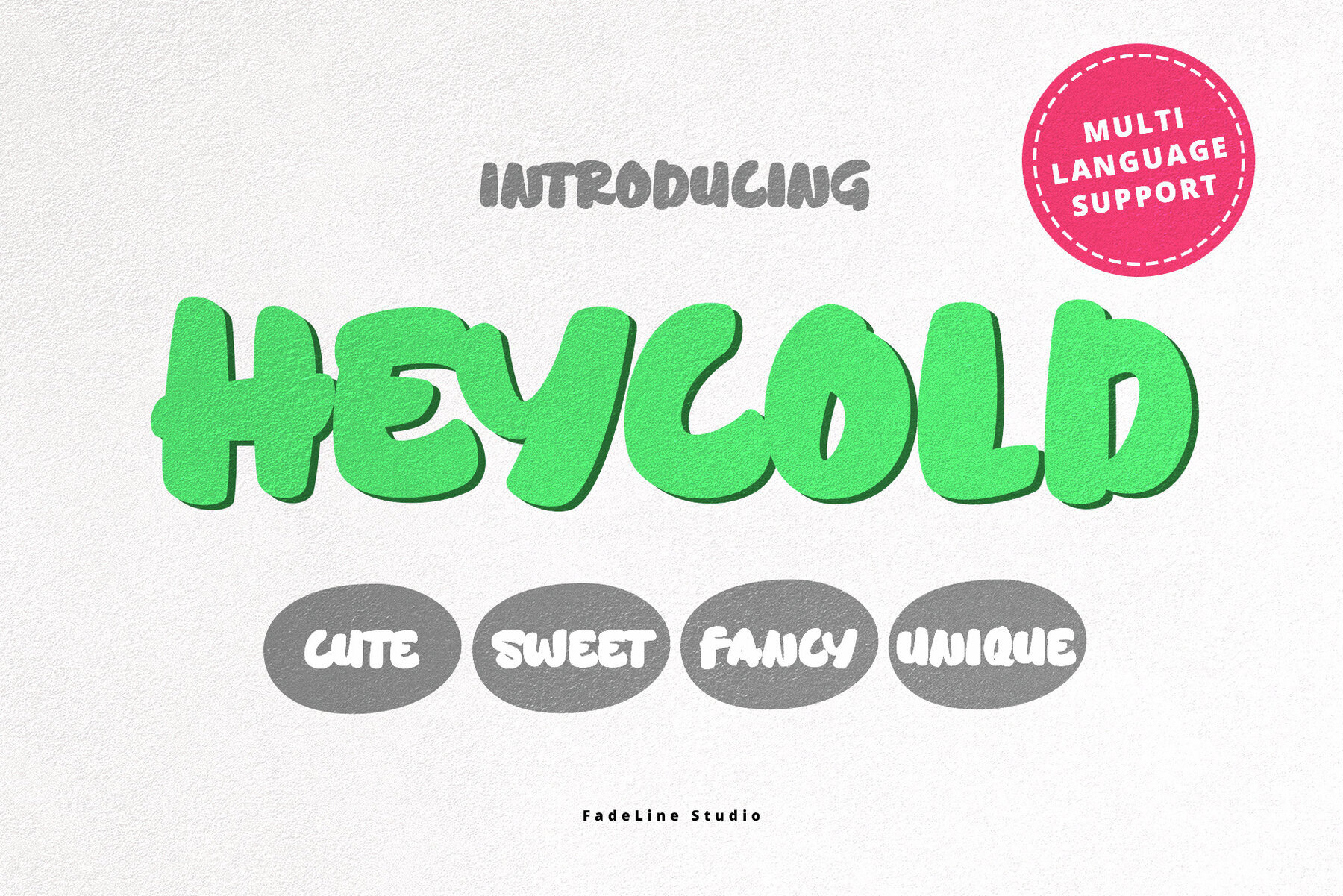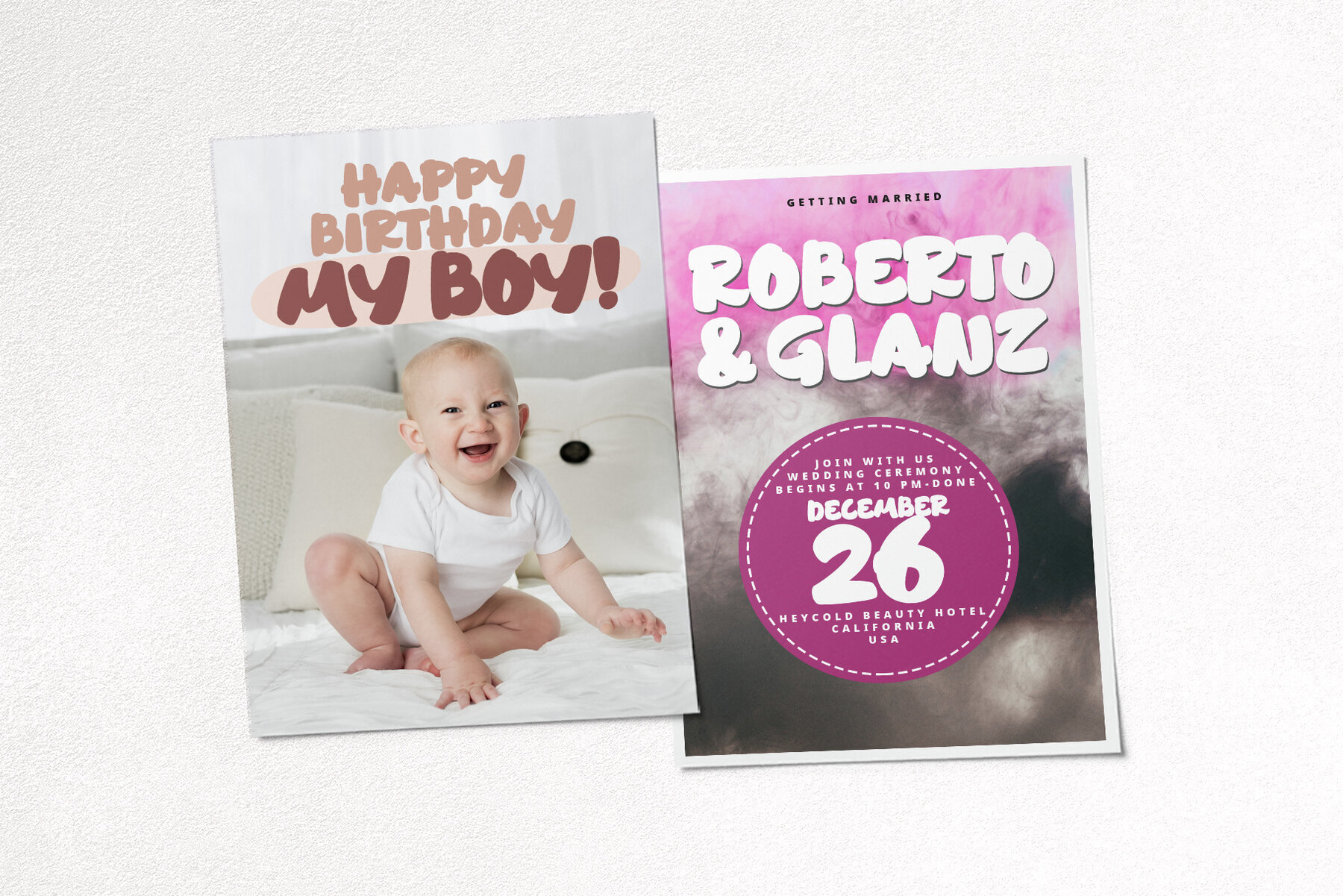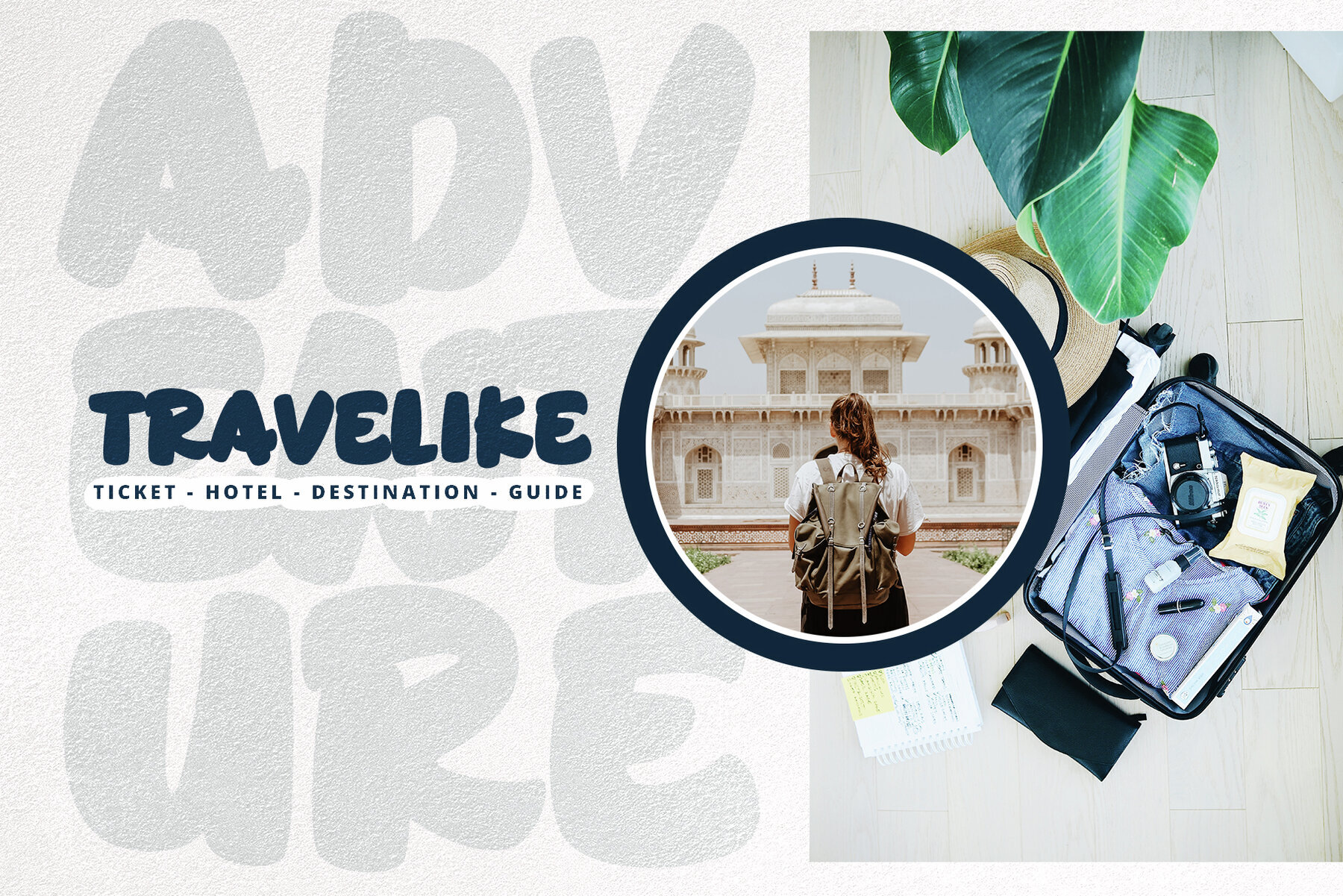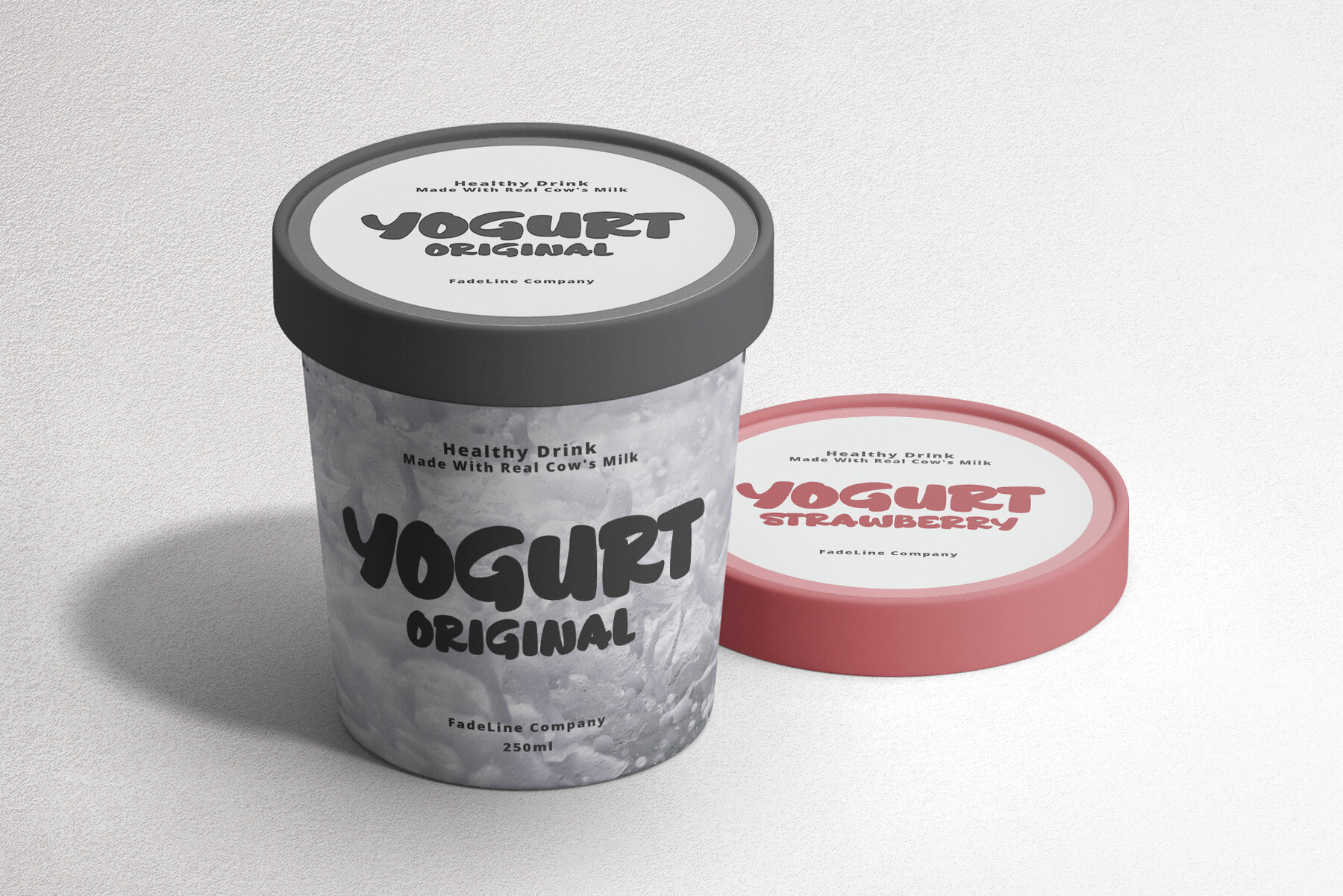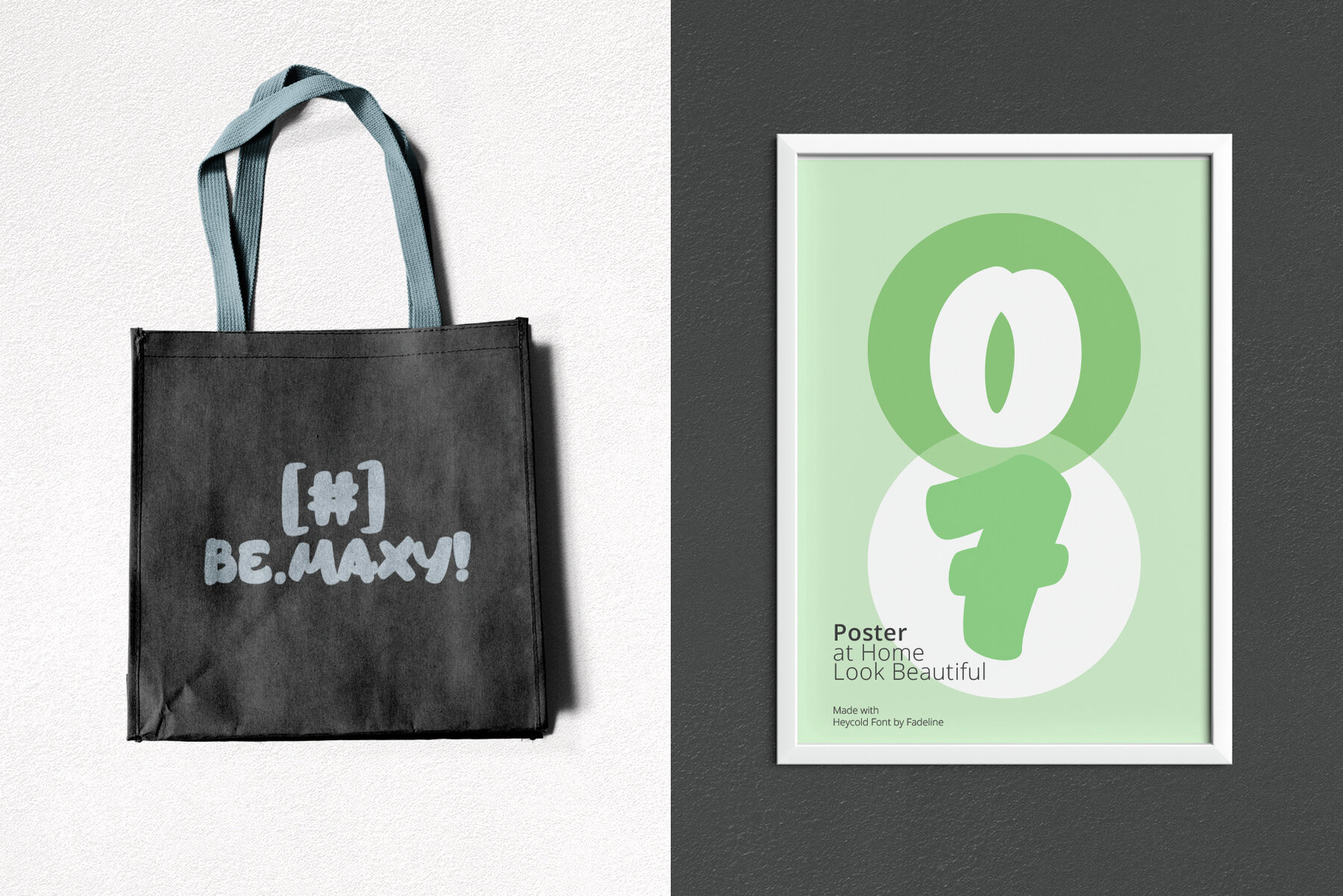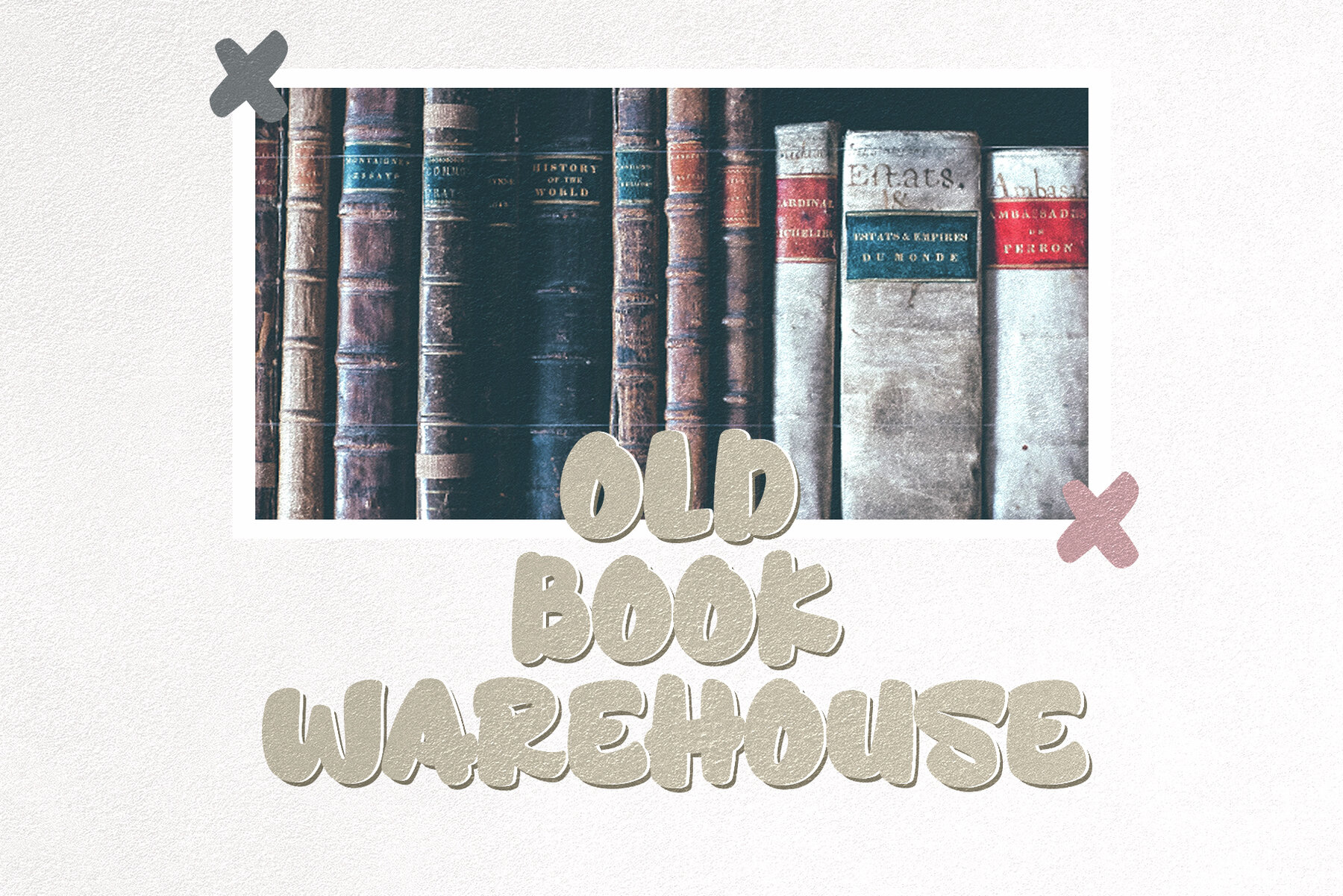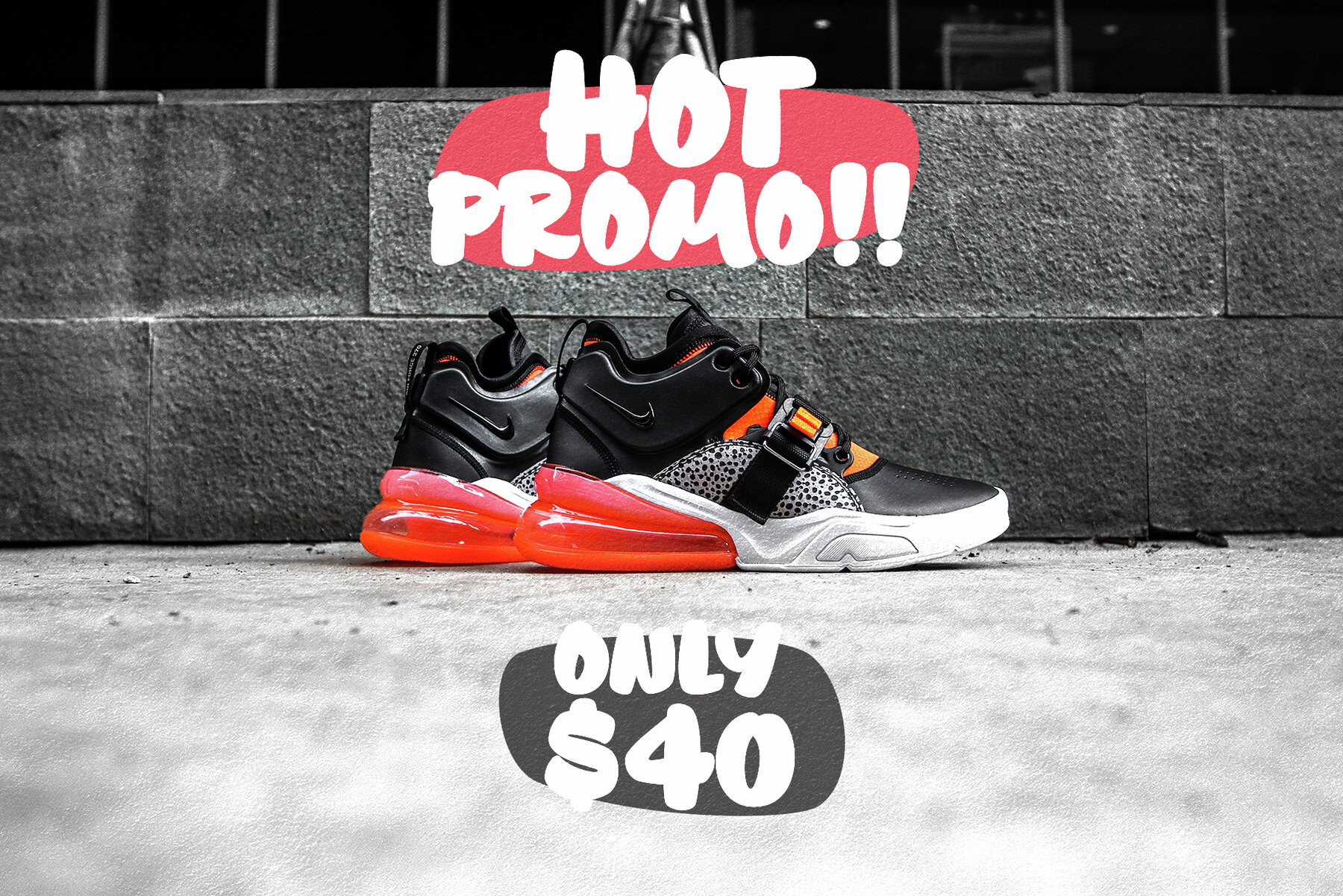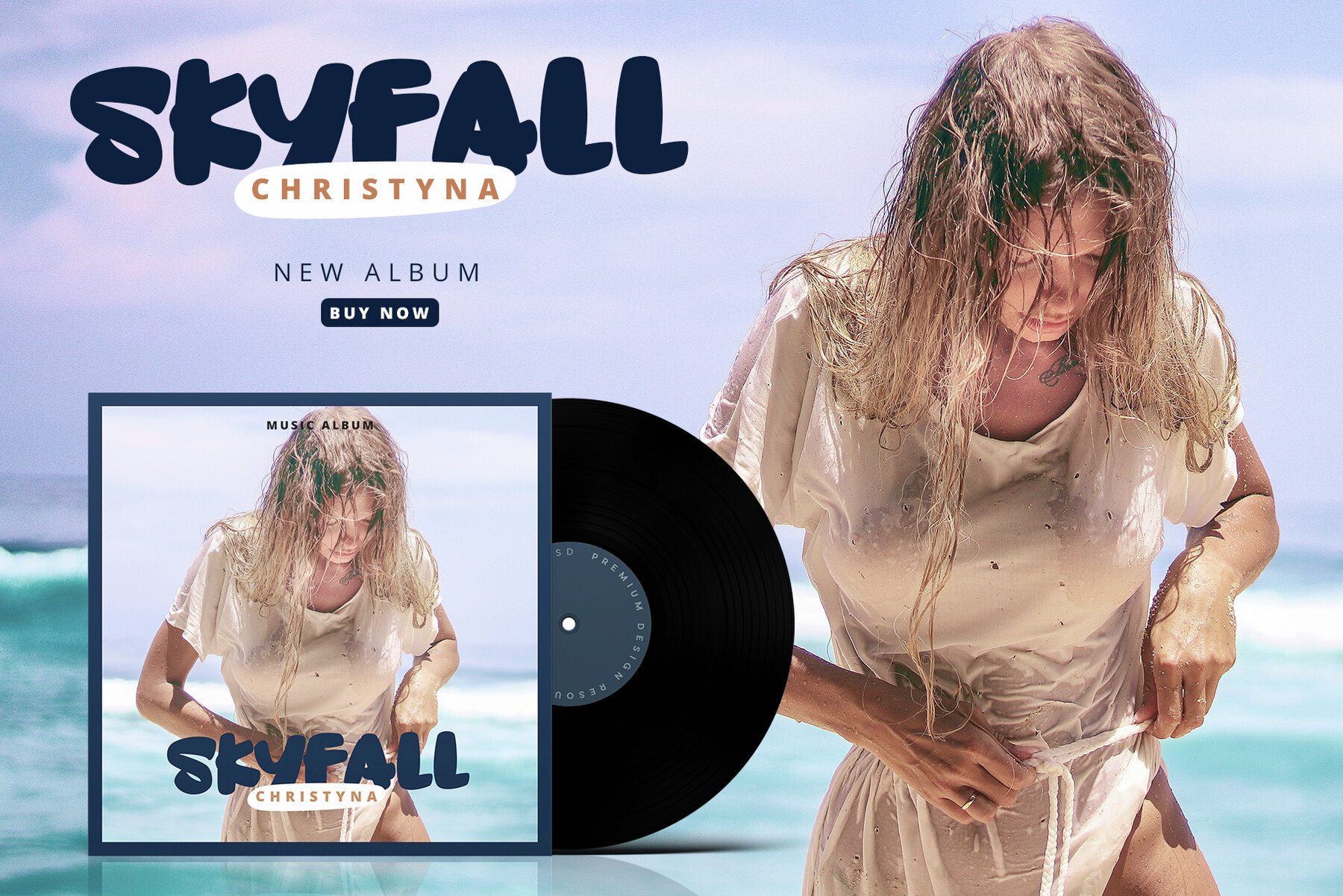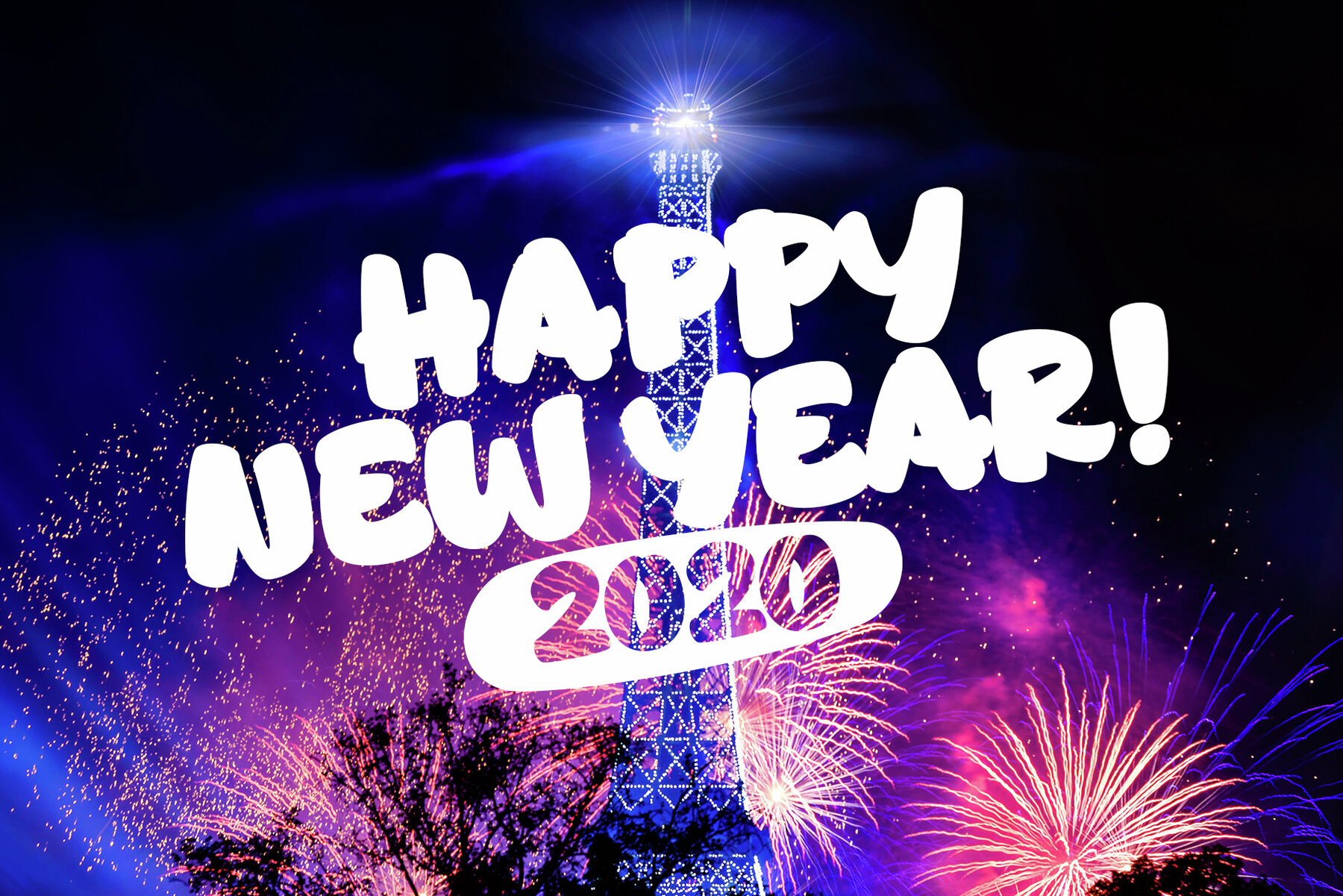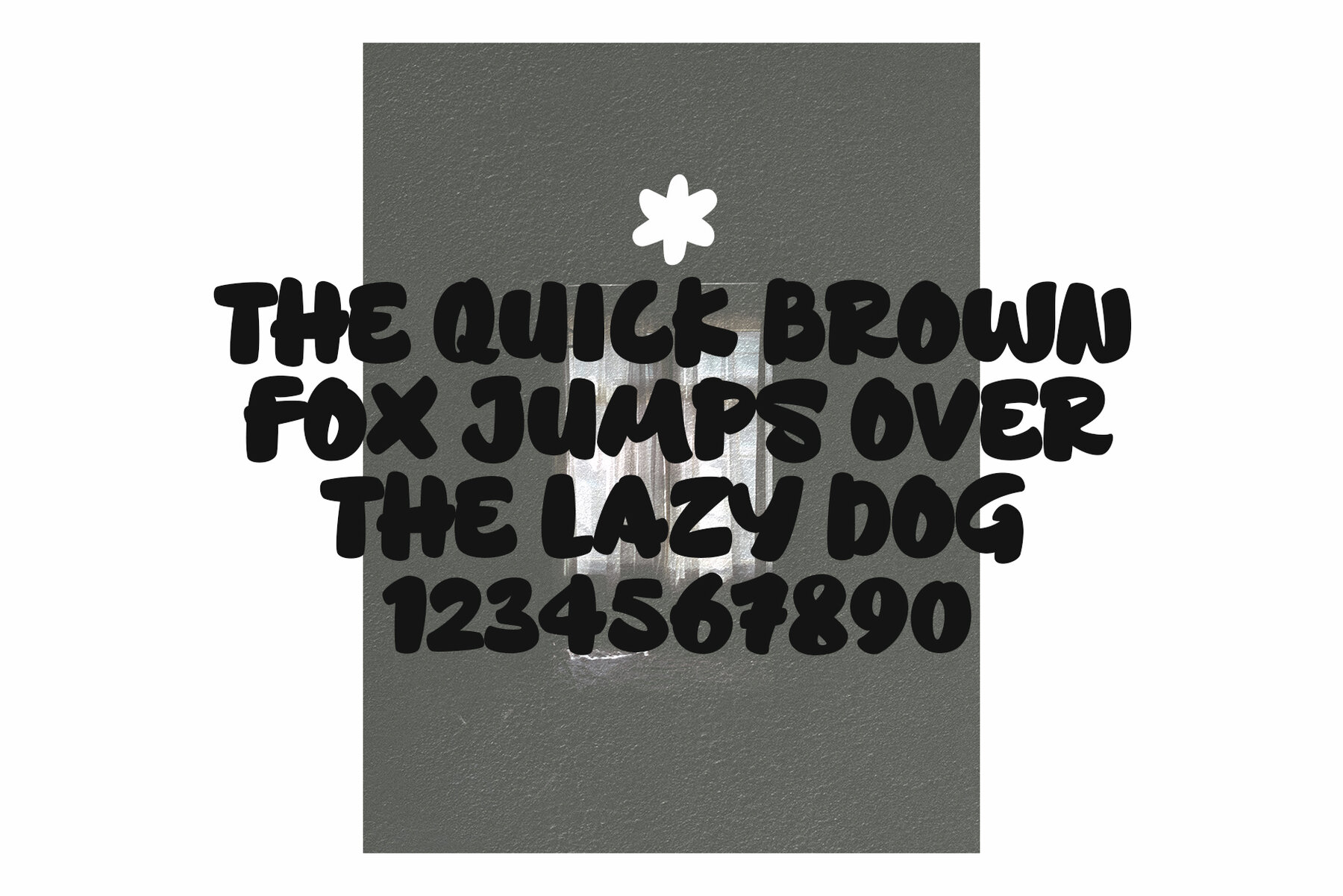
HEYCOLD Font
Heycold
Meet HEYCOLD, a captivating and modern display font designed by FadeLine Studio. With its adorable and lively characters, this font adds a touch of whimsical charm to any project. Crafted with a keen eye for detail, HEYCOLD aims to bring joy and creativity to every creation it graces.HEYCOLD: Playful Display Font
Versatile Usage